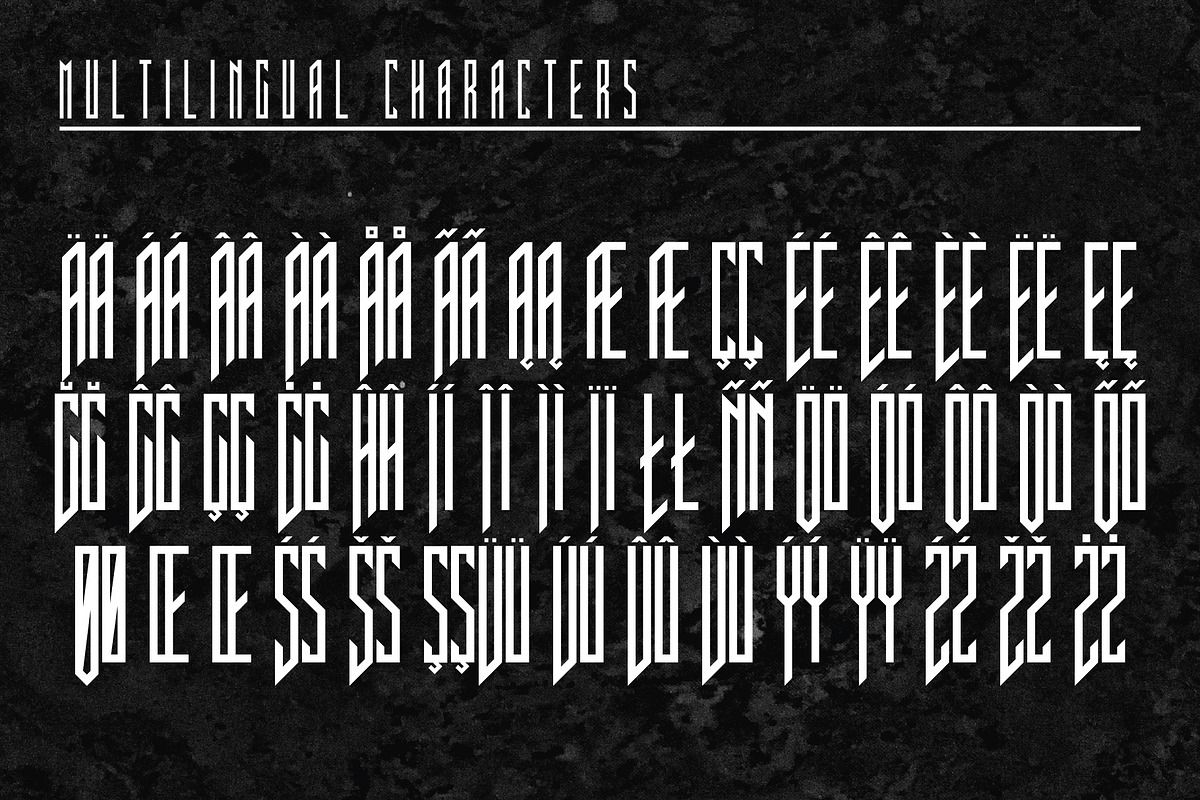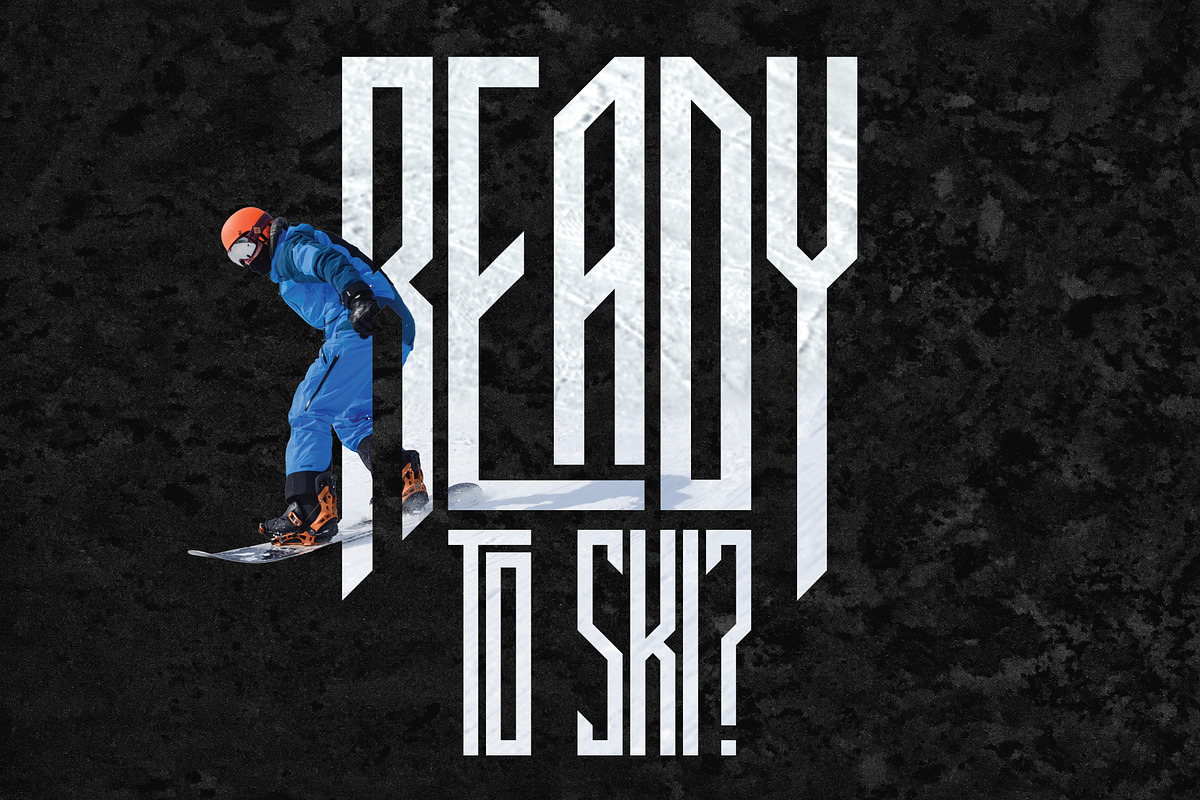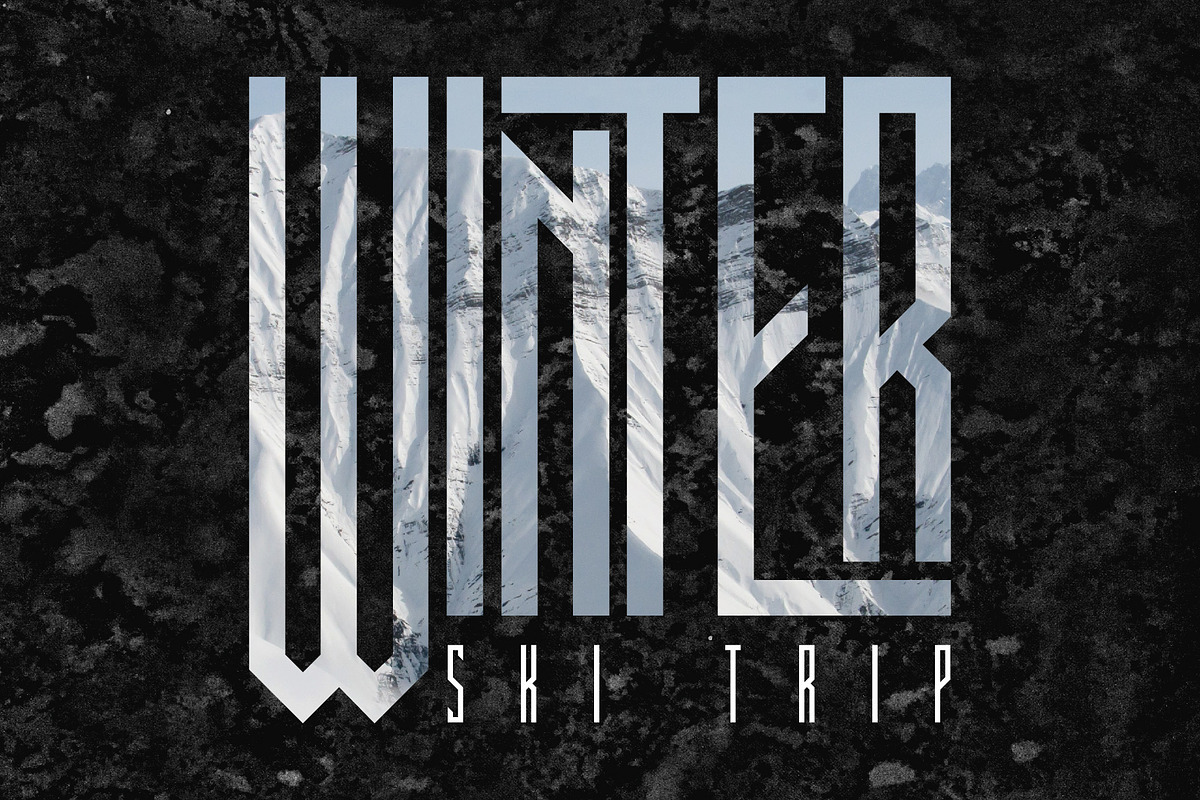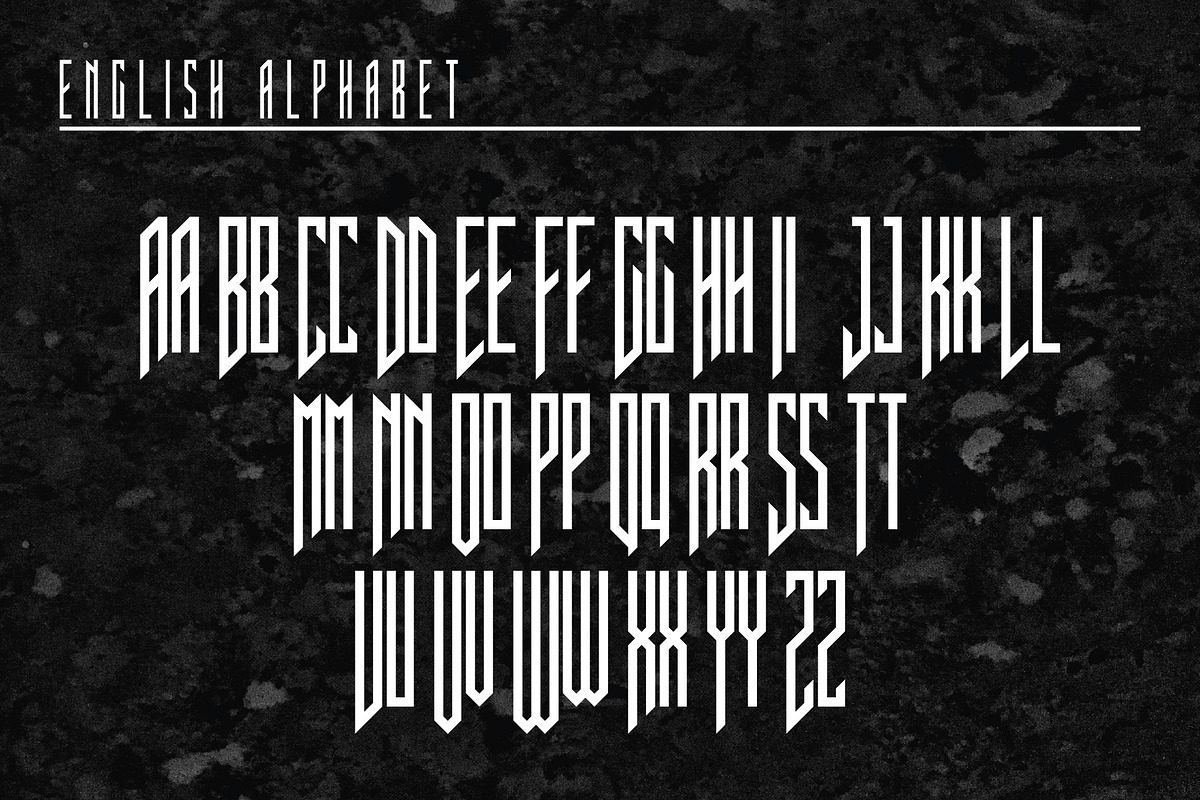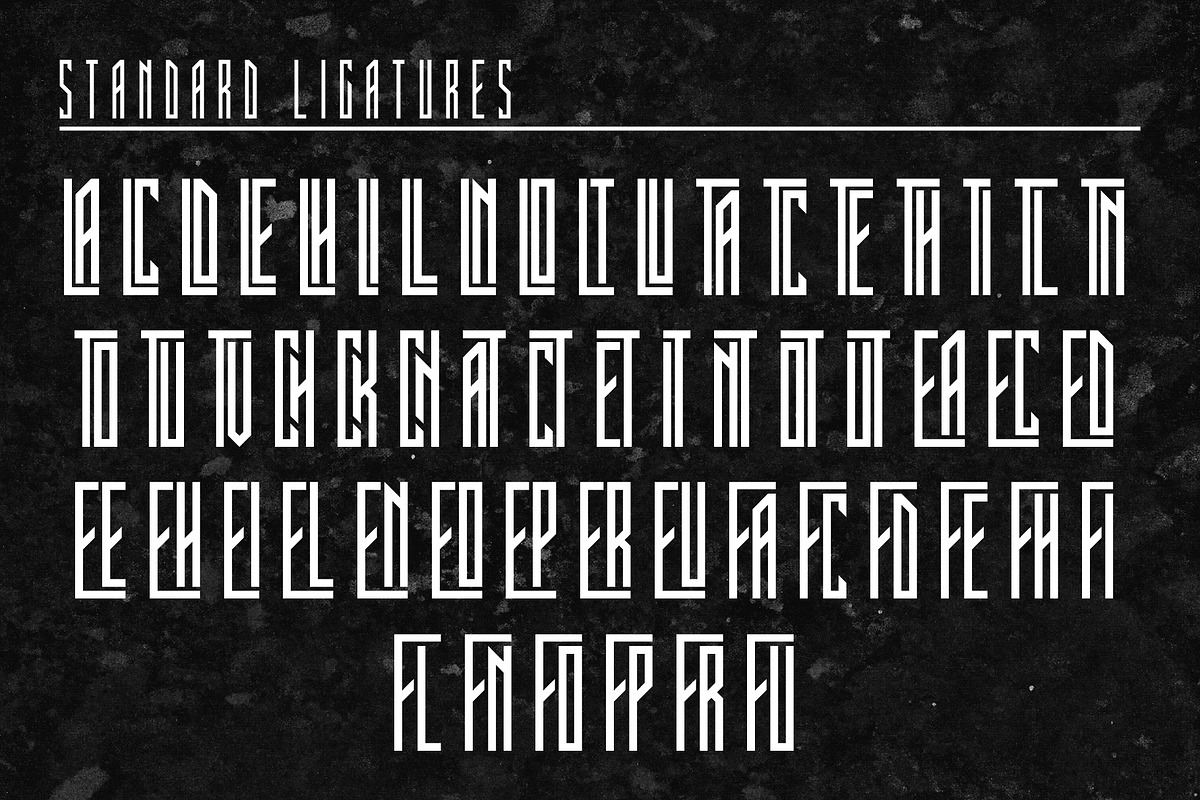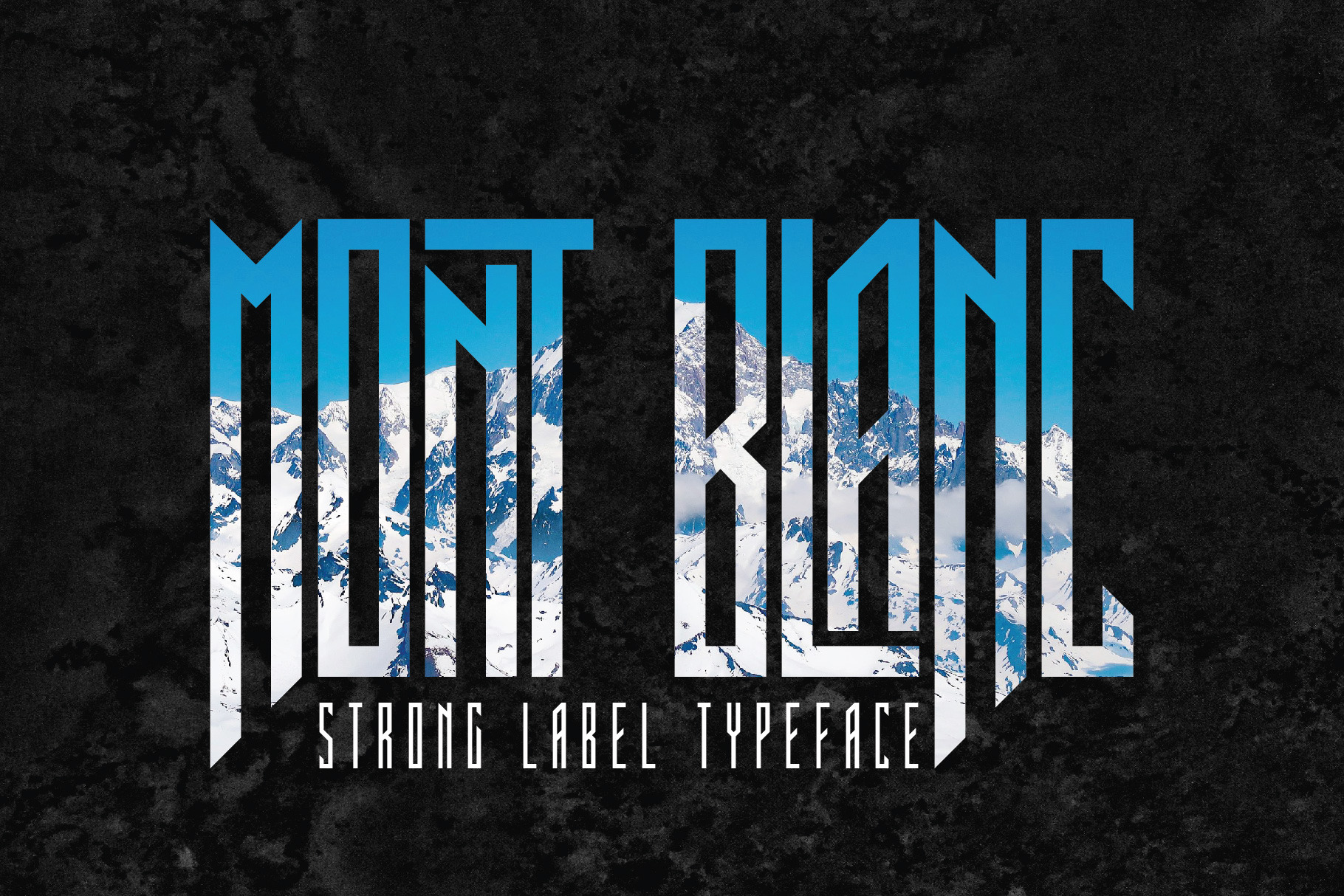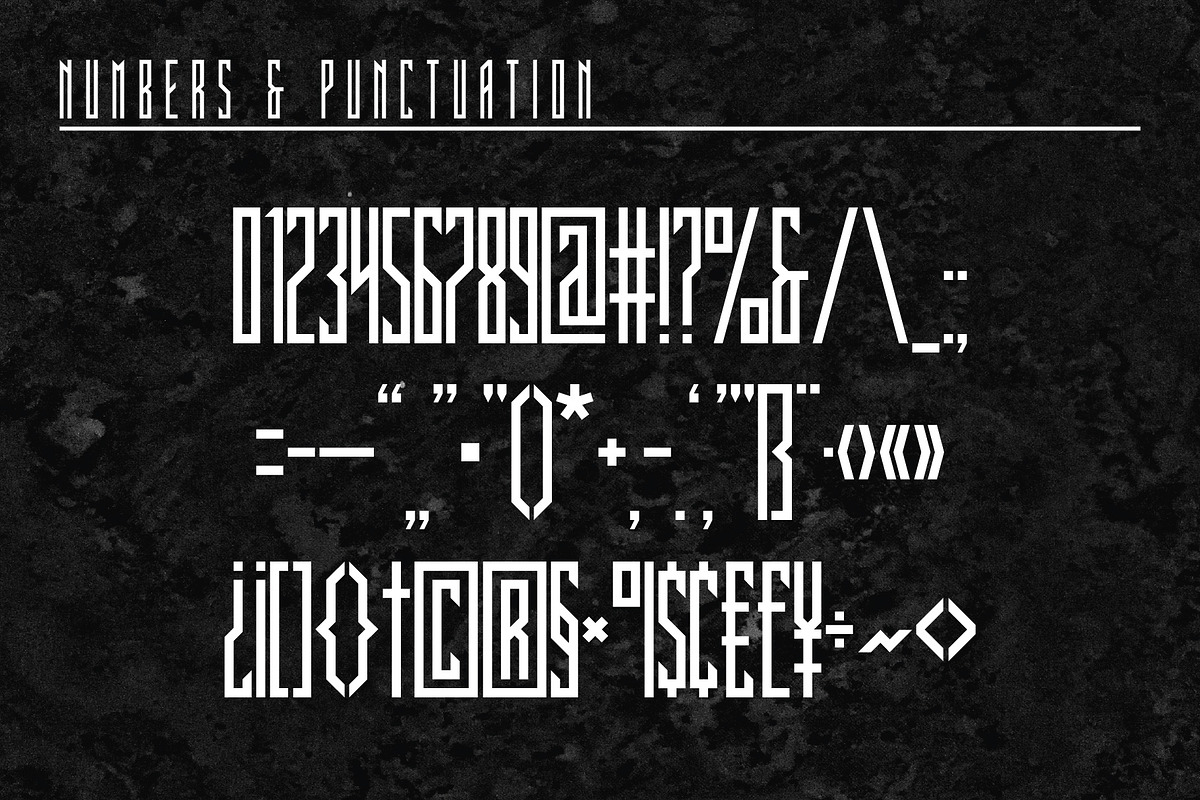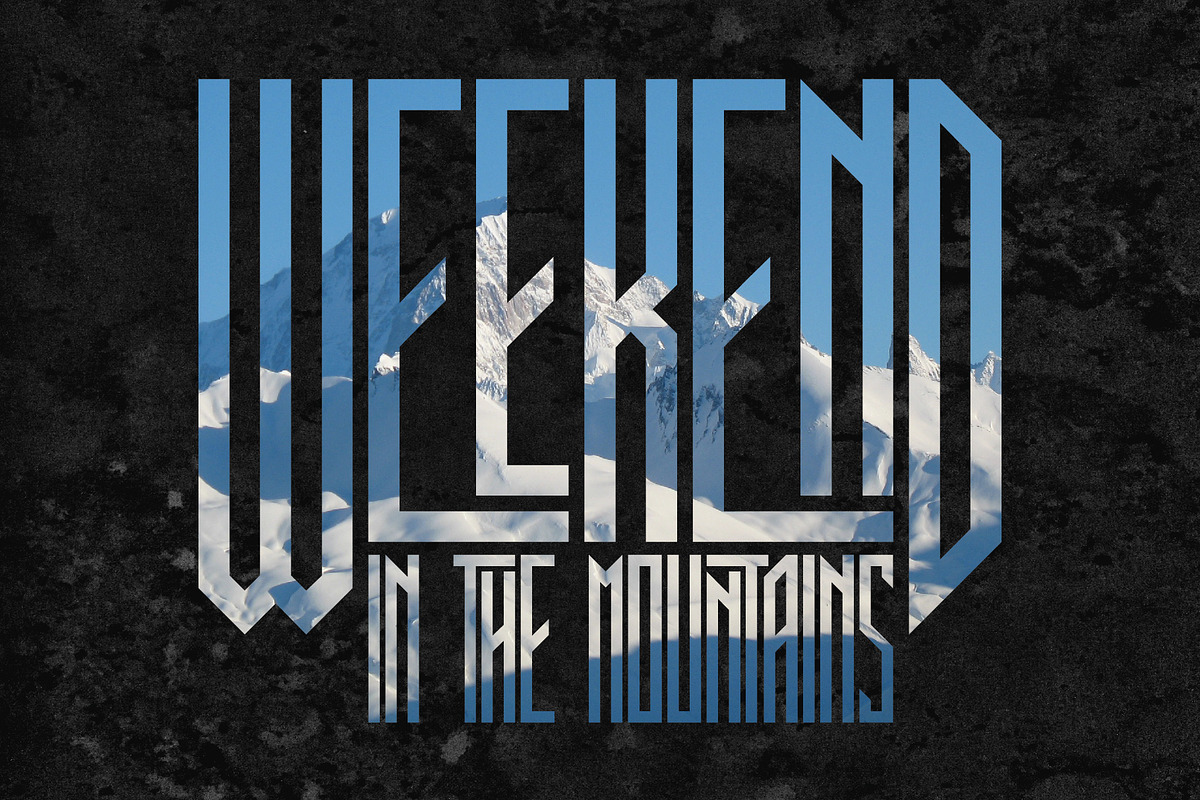
Mont Blanc Sharp Label Font
Unique, blackletter, retro, sharp, condensed, monogram & label sans serif font. Comes with multilingual support & ligatures - great for your new logo, monogram or branding project.
- Multilingual support & ligatures
- Great for your new logo, monogram or branding project